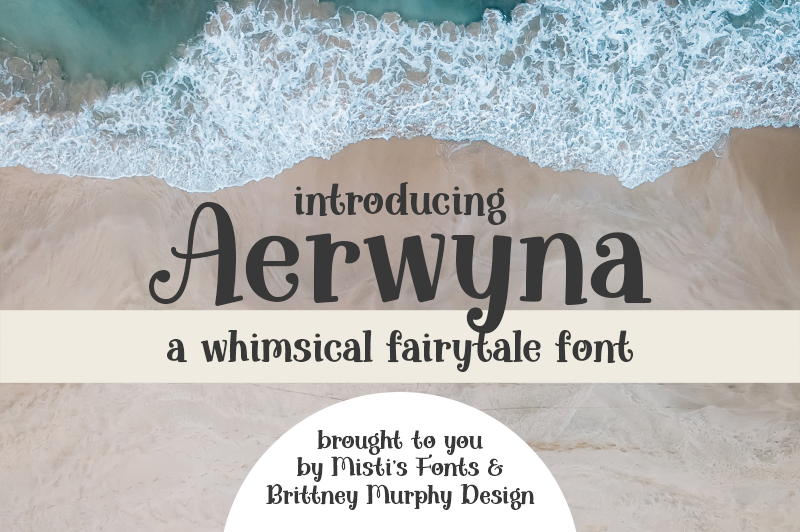
Font name: | Aerwyna |
Author: | Brittney Murphy Design |
Note by Brittney Murphy Design | |
Aerwyna is a handdrawn serif created in collaboration with Misti�s Fonts. Designed in a rustic, fairytale style, Aerwyna will add a touch of friendliness and whimsy to your design projects. Unique, yet highly legible, this font can be used for headlines, bylines, or content alike. Free for PERSONAL USE ONLY. For commercial use, please purchase a license: https://brittneymurphydesign.com/downloads/aerwyna-font/ |